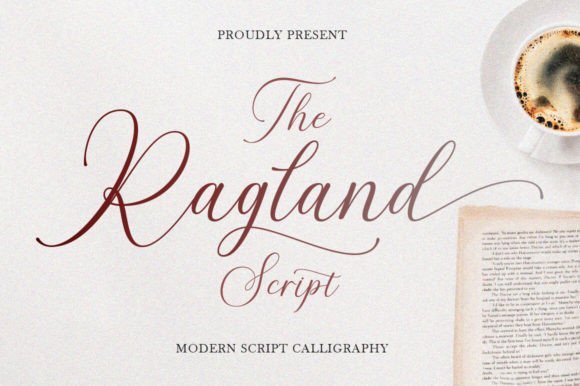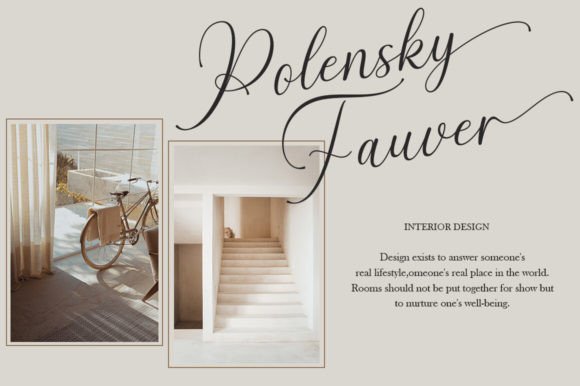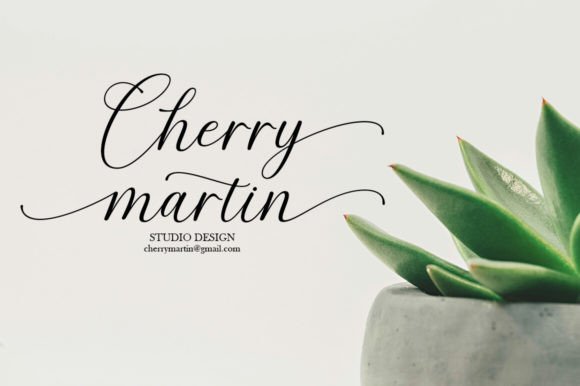
Immerse yourself in the beauty of The Ragland Script, a sophisticated, handwritten font designed to infuse impeccable grace into your creative ventures. Its PUA encoding allows you to effortlessly utilize all the diverse glyphs and elegant swashes available. The Ragland Script uniquely combines the charm of timeless calligraphy with its smooth lines, dramatic glyphs, and alternate strokes, complimented by a shifting baseline that brings a modern and dynamic twist. With the unforgettable allure of flowing in each letter, elevate your projects to new, unprecedented heights with the versatile and aesthetic Ragland Script!
The Ragland Script Font